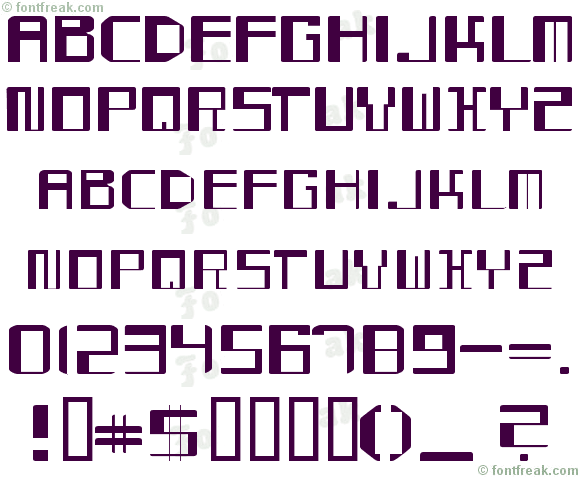
Mayday
The Mayday font, designed by Dieter Schumacher in 1998 and available as freeware from Fontmaker, is a captivating display typeface that embraces a unique blend of modernity and artistic flair. This font belongs to the display category, making it ideal for attention-grabbing applications. Its visual characteristics include a medium stroke weight with subtle variations in contrast, creating a dynamic appearance that enhances readability while retaining a stylish edge. The letterforms exhibit a balanced spacing that contributes to an overall sense of harmony, making it suitable for both titles and body text.
Mayday's distinct design is characterized by its playful yet sophisticated elements, making it a versatile choice for various creative projects. This font shines in use cases such as wedding invitations where a touch of elegance is desired, movie posters that require bold and impactful typography, restaurant menus that benefit from a lively aesthetic, and branding materials for small businesses aiming to make a memorable impression. Its engaging style is particularly appealing to graphic designers, small business owners, and content creators looking to elevate their visual communication.
What truly sets the Mayday font apart is its ability to convey personality while remaining functional. Its unique design captures attention without overwhelming the viewer, striking a perfect balance between creativity and clarity. The Mayday font free download option allows users to incorporate this distinctive typeface into their projects without any cost, making it an accessible choice for anyone looking to enhance their design toolkit. Whether you’re crafting a promotional flyer, designing a logo, or creating an event invitation, the Mayday font offers a refreshing and contemporary look that is sure to stand out in any context.